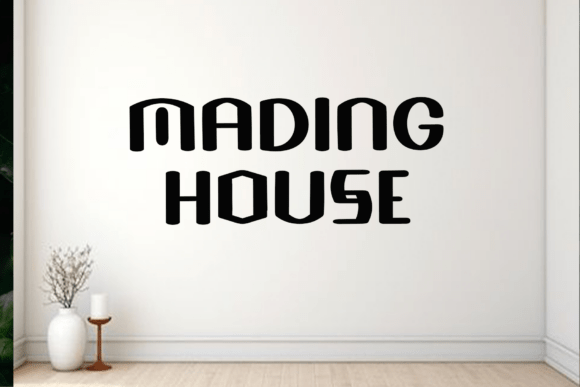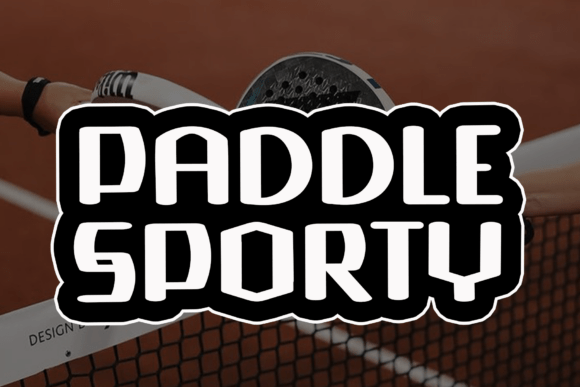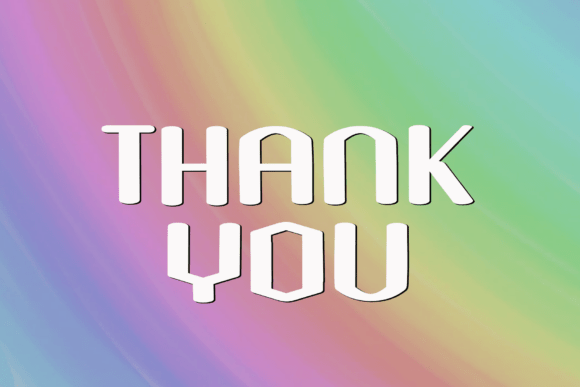
Introducing Black Home Font: A Modern Display Powerhouse
In the realm of typography, a font can make or break the visual identity of a brand. For those seeking a bold, modern, and unconventional look, the Black Home font is an exceptional choice. This striking modern display font is characterized by its bold, blocky construction and distinctive, subtly geometric letterforms, making it an instant attention-grabber.
Design and Features
The Black Home font boasts a heavy weight and an intriguing mix of straight lines and soft curves, which gives it a unique and custom-designed feel. One of its standout features is the hexagonal counter in the letter ‘O’, adding a touch of sophistication and elegance to the overall design. This distinctive element sets Black Home apart from other fonts and makes it a memorable addition to any design project.
Perfect for Bold Statements
Black Home is specifically designed for use in branding, headlines, posters, and logotypes that require a powerful and modern look. Its assertive and clear letterforms make it highly effective for capturing attention in both digital and print media. Whether you’re looking to create a bold brand identity or simply want to add some visual punch to your designs, Black Home is the perfect choice.
Key Benefits for Designers and Crafters
- Attention-grabbing: Black Home’s bold and geometric design ensures it stands out in any design project.
- Versatile: Suitable for use in a wide range of applications, from branding and headlines to posters and logotypes.
- Memorable: The unique hexagonal counter in the letter ‘O’ and the font’s distinctive letterforms make it easy to remember.
- Custom-designed feel: Black Home’s mix of straight lines and soft curves gives it a unique, hand-crafted aesthetic.
Applications and Inspiration
Black Home’s versatility and striking design make it suitable for a wide range of applications. Here are a few ideas to get you started:
- Branding: Use Black Home to create a bold and memorable brand identity that stands out from the competition.
- Headlines and titles: Add visual punch to your headlines and titles with Black Home’s assertive and clear letterforms.
- Posters and flyers: Make a statement with Black Home’s bold and geometric design, perfect for posters and flyers.
- Logotypes and signage: Use Black Home to create eye-catching logotypes and signage that demands attention.
Tips for Using Black Home Font
To get the most out of Black Home, here are a few tips to keep in mind:
- Use it sparingly: Due to its bold and attention-grabbing nature, it’s best to use Black Home sparingly to avoid overwhelming the viewer.
- Pair it with contrasting fonts: Combine Black Home with contrasting fonts to create visual interest and add depth to your design.
- Experiment with colors and textures: Don’t be afraid to experiment with different colors and textures to add an extra layer of visual interest to your design.
In conclusion, the Black Home font is a powerful and modern display font that is sure to make a statement in any design project. Its bold, blocky construction, distinctive letterforms, and unique hexagonal counter make it a memorable and attention-grabbing choice. Whether you’re a designer or crafter, Black Home is an excellent addition to your typography toolkit.